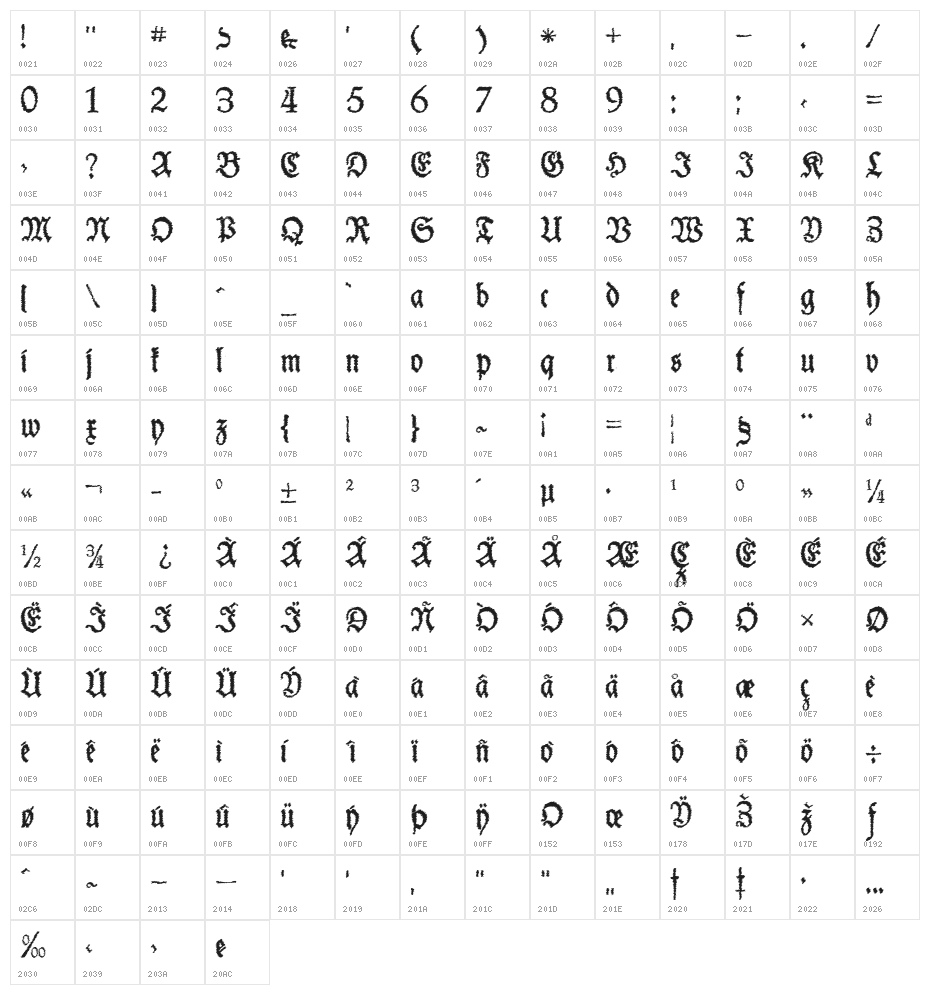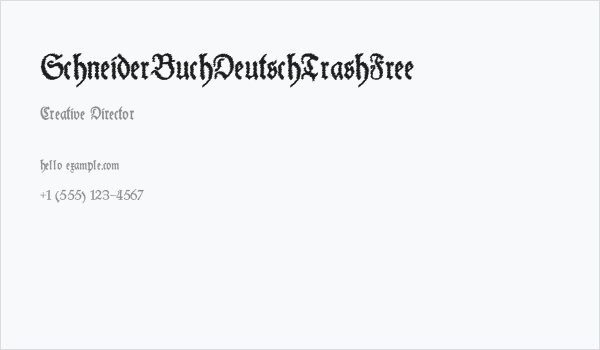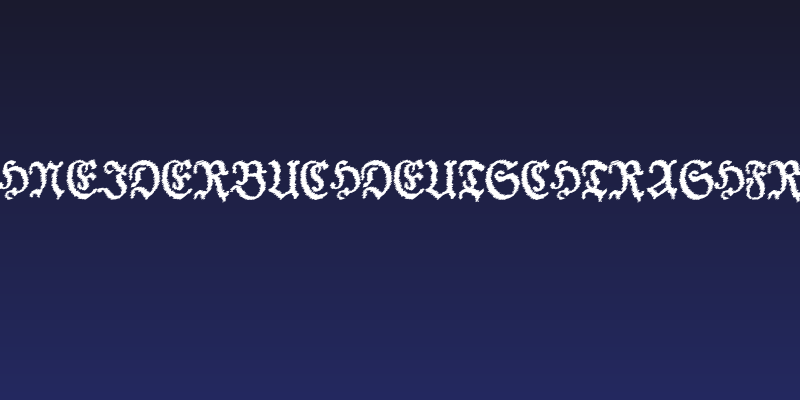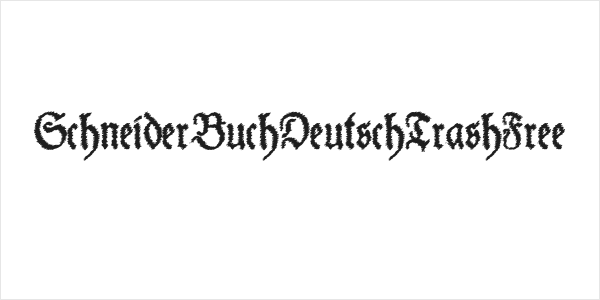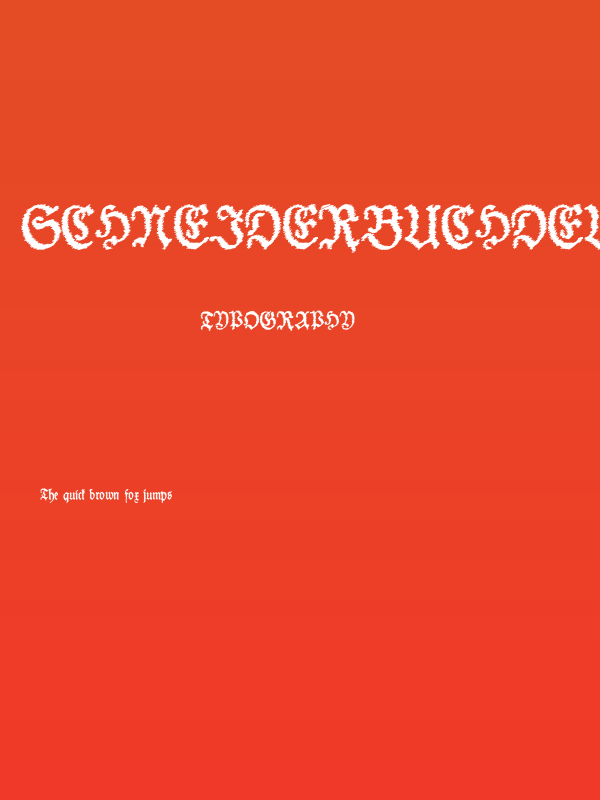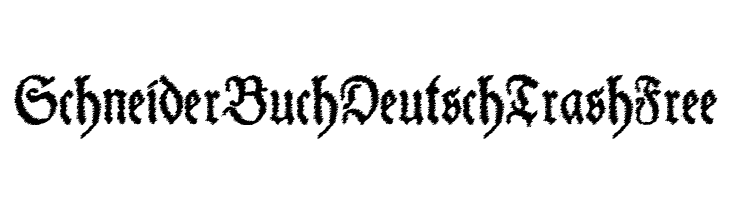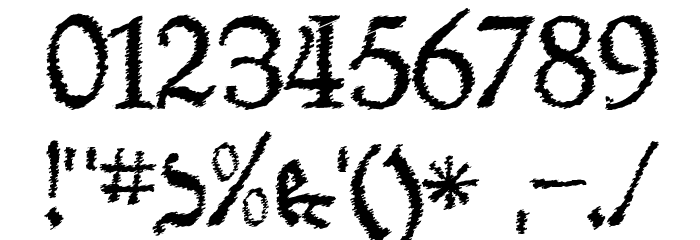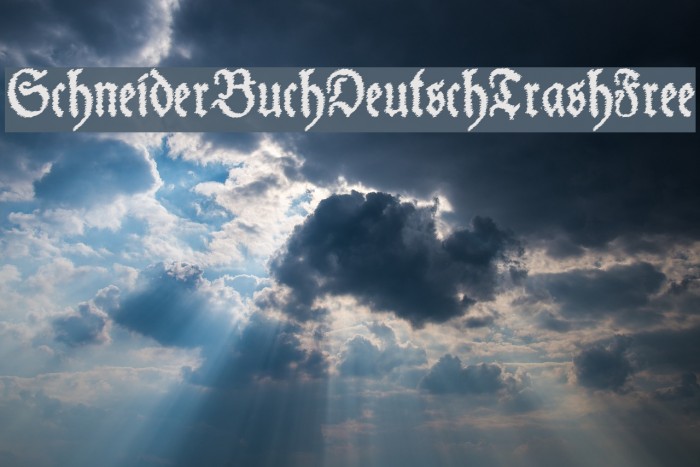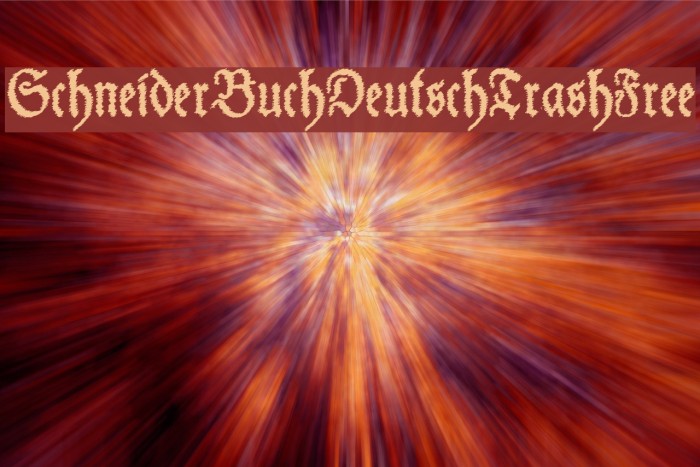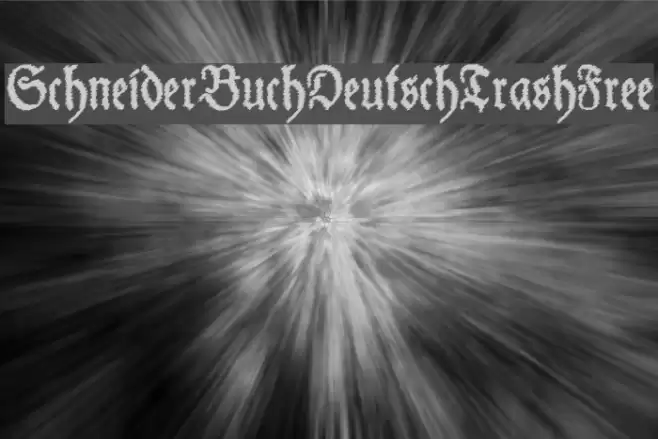
SchneiderBuchDeutschTrashFree Font
SchneiderBuchDeutschTrashFree Description
This font features a bold and intricate design reminiscent of traditional Blackletter styles. The characters are highly decorative, with sharp, angular lines and elaborate flourishes that give it a historical and gothic appearance. The uppercase letters are particularly ornate, with unique embellishments that add to the font's dramatic flair. The lowercase letters maintain a consistent style, offering a cohesive look across the alphabet. Numbers and special characters are equally detailed, ensuring uniformity throughout. The overall aesthetic is striking and commands attention, making it ideal for projects that require a touch of elegance and tradition.
| Overall Style | Vintage |
| Use Case | Headlines, Logos, Decorative text |
| Proposed Projects | Ideal for historical documents, gothic-themed designs, book covers, posters, and branding that requires a traditional or dramatic touch. |